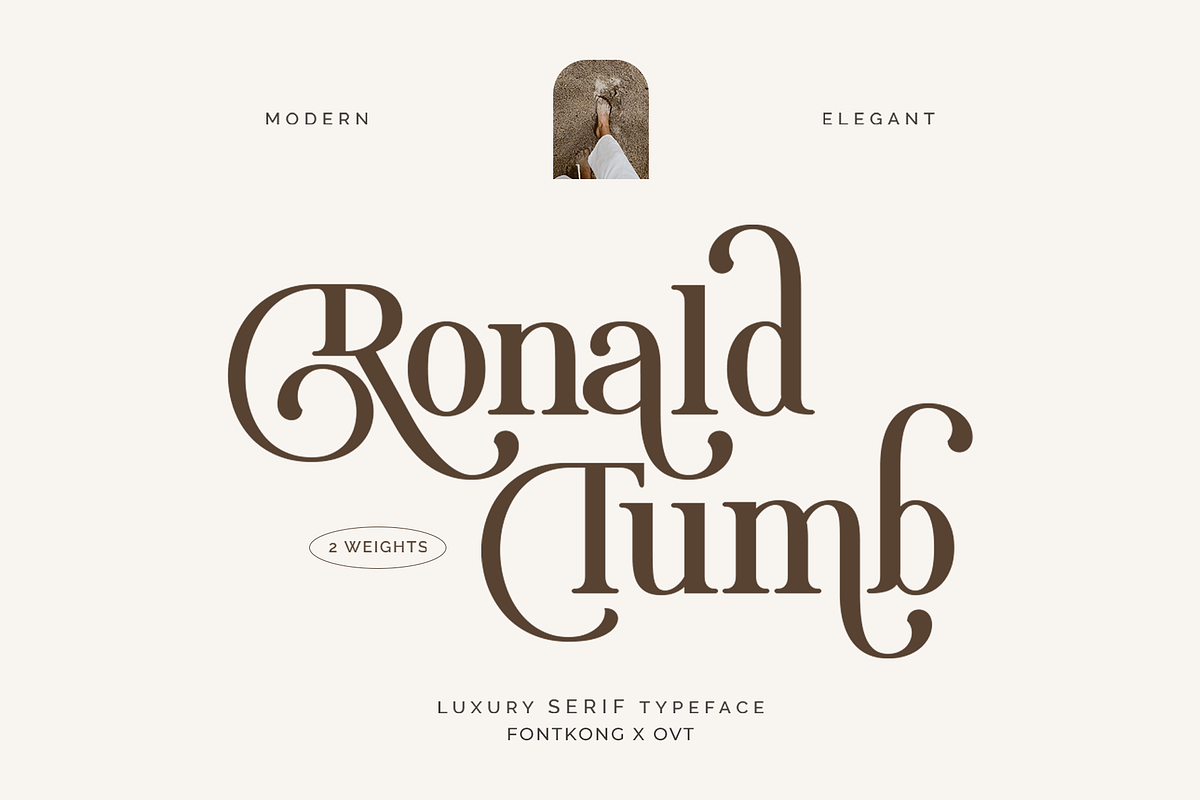
Ronald Tumb - Luxury Serif Typeface Free Download
Ronald Tumb - Luxury Serif Typeface Free Download is a high-end, sophisticated typeface designed for elegant and upscale branding. With its refined serifs, stylish curves, and confident presence, Ronald Tumb is perfect for fashion editorials, luxury packaging, boutique logos, wedding invitations, and premium product branding. It embodies timeless beauty with a modern edge.
This font stands out in both headlines and body text, offering a balance of readability and flair. Whether used in digital campaigns or printed materials, Ronald Tumb delivers a polished and professional look that elevates your brand identity.